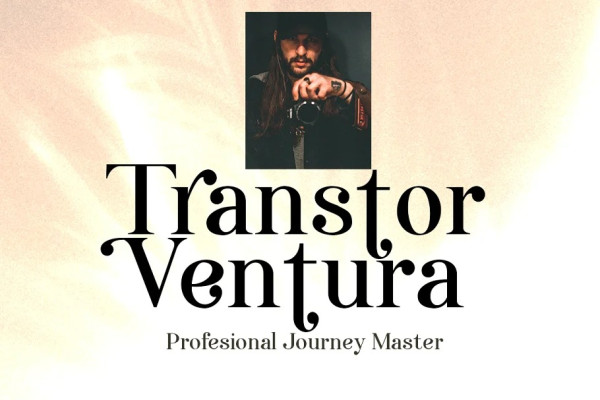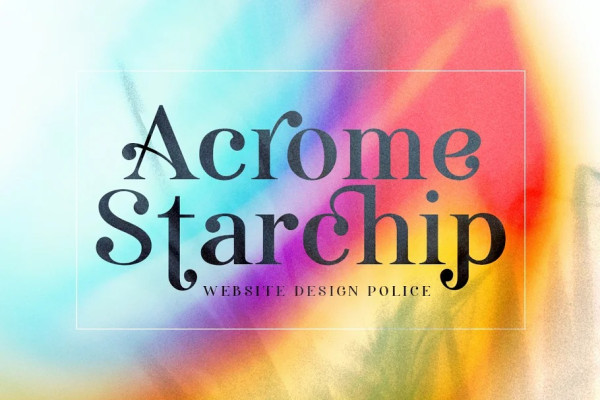
Anggie Font
Anggie Font is an elegant script with a creative mood and perfect form, inspired by today’s beautiful serif Display. thick, balanced and varied, born for luxury and beauty.
In my example I show how this script can be used. It’s great for logotypes, branding, wedding invitations, romantic cards, alcohol labels, packaging, name spelling and more.
Anggie Displaycomes with beautiful uppercase and lowercase letters, numbers, and punctuation. In addition to the main character set, there are many alternative characters, early and late sweeps.